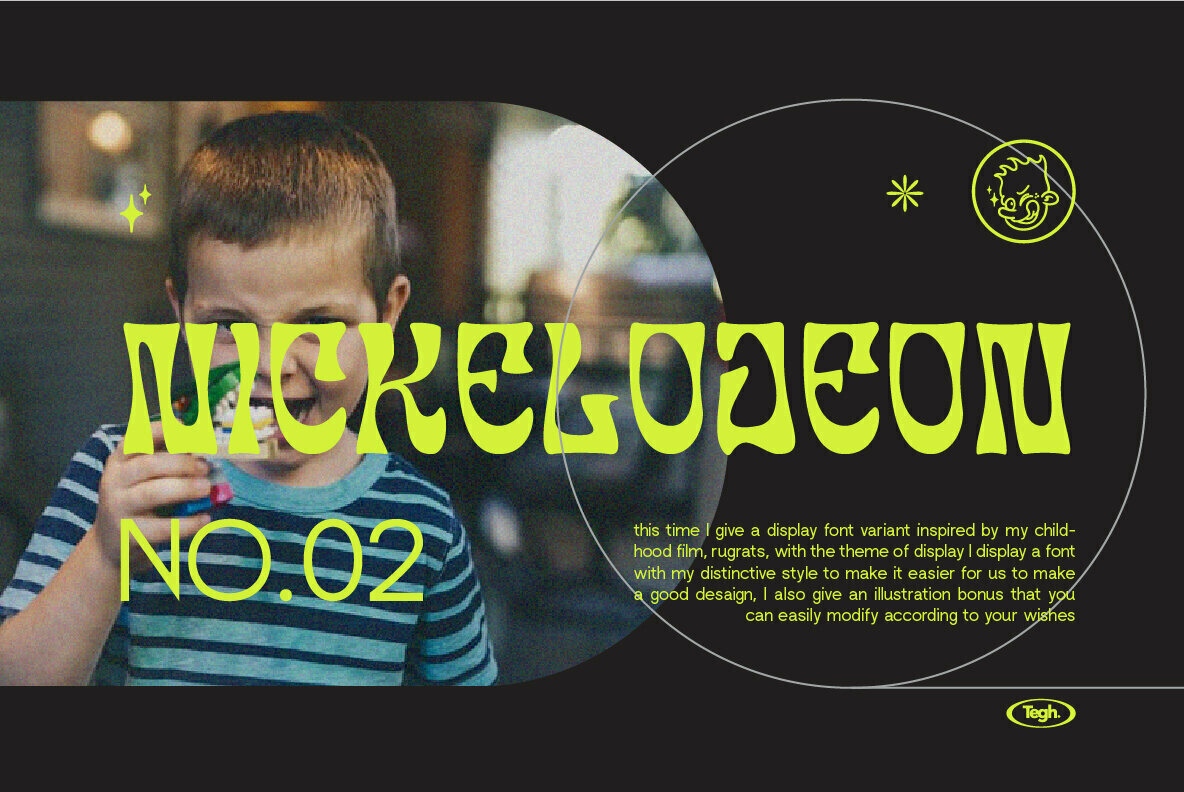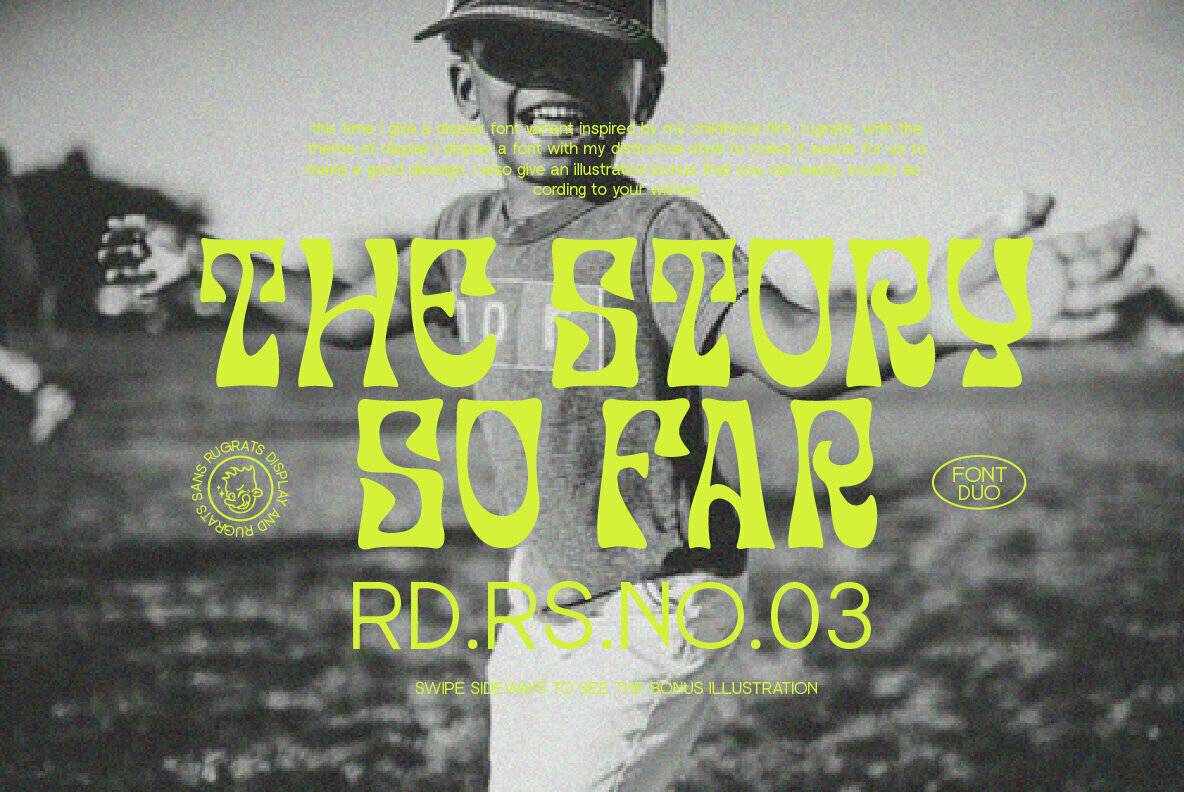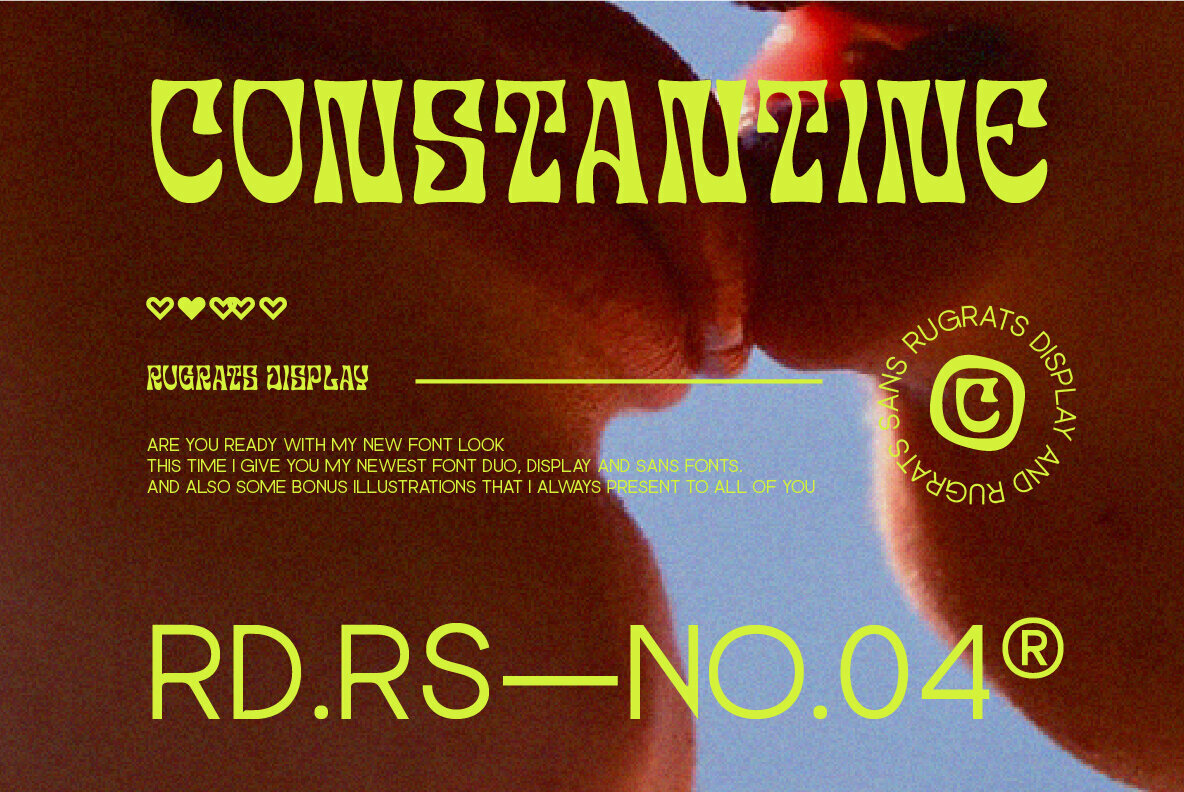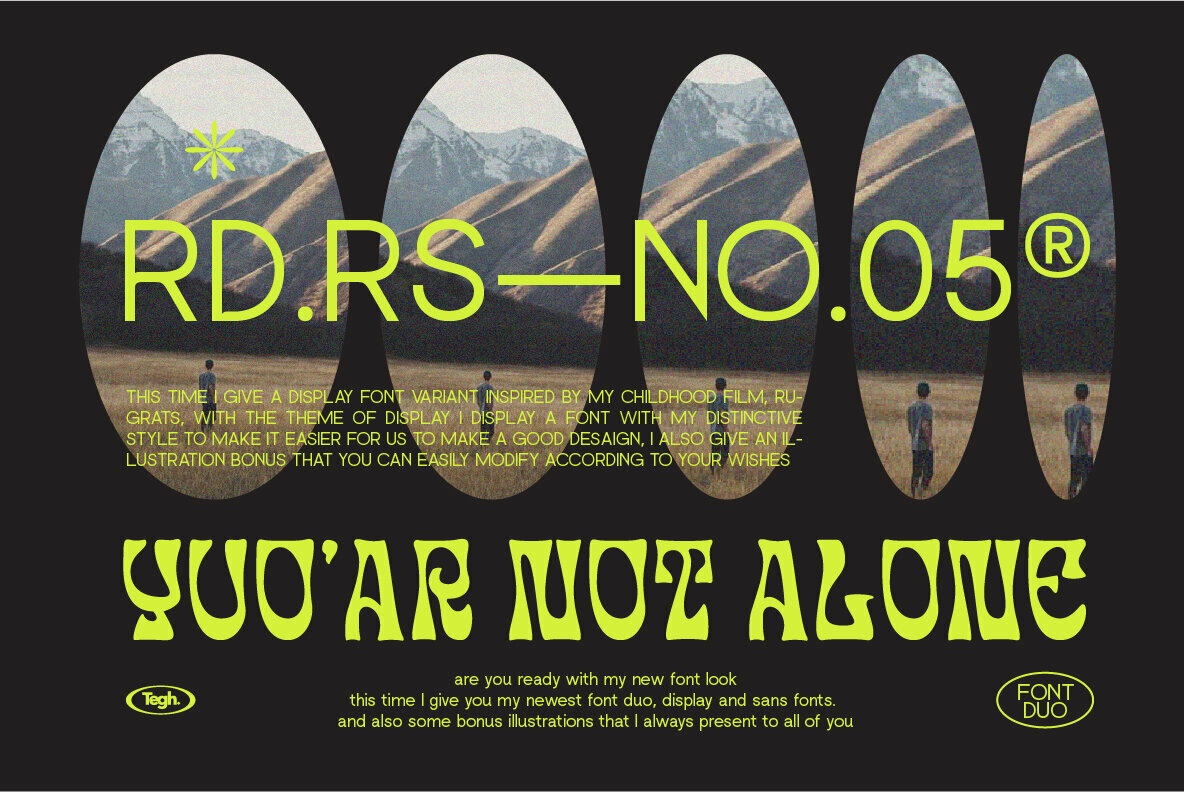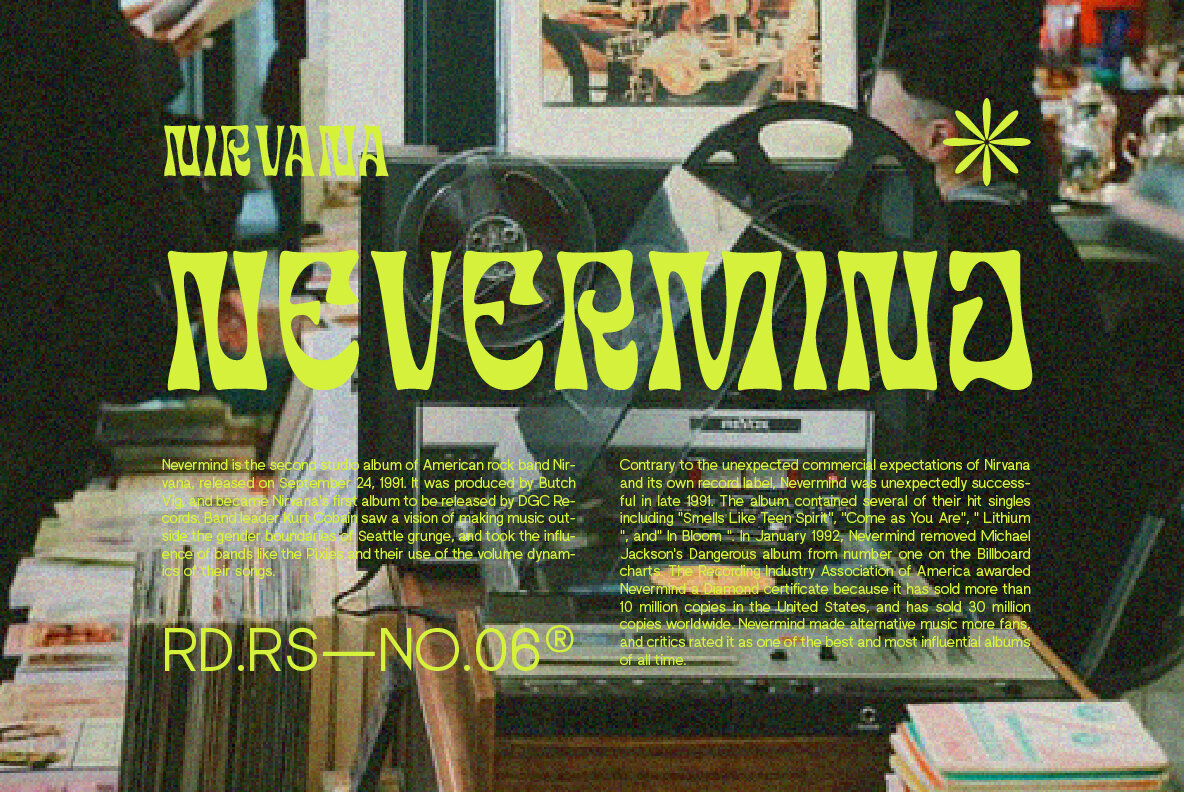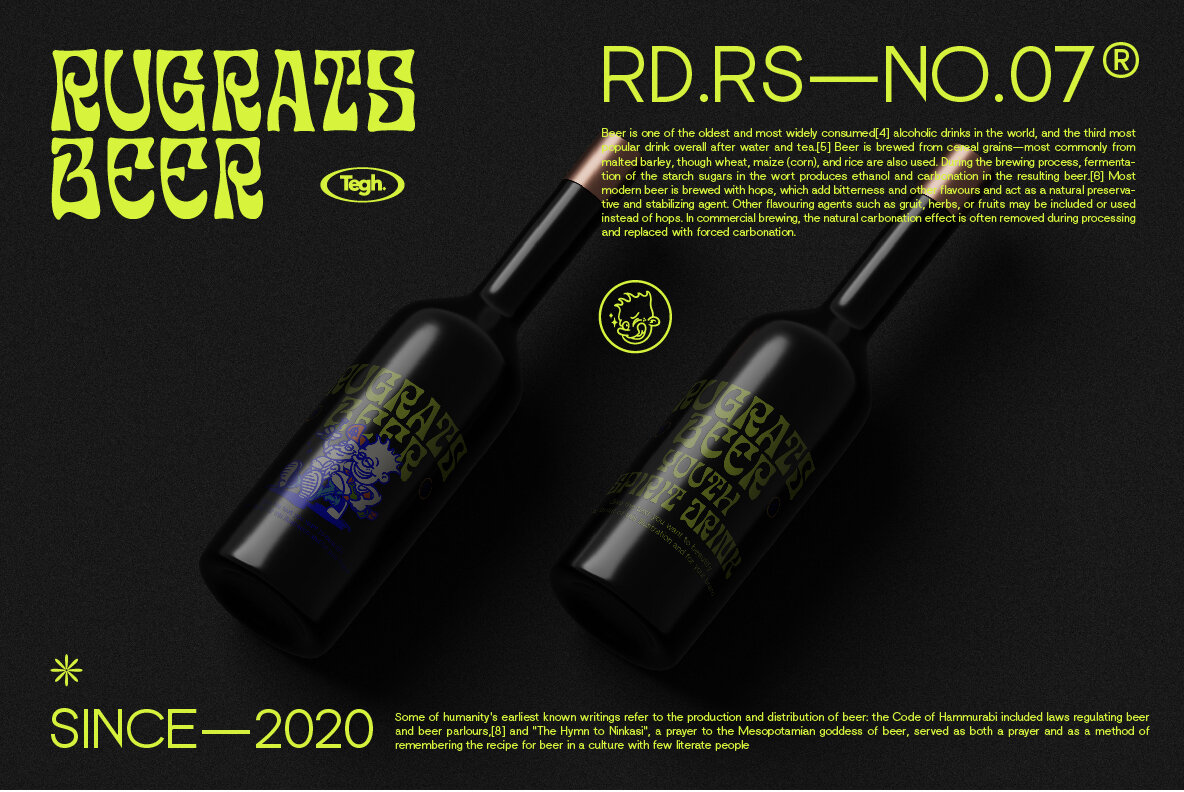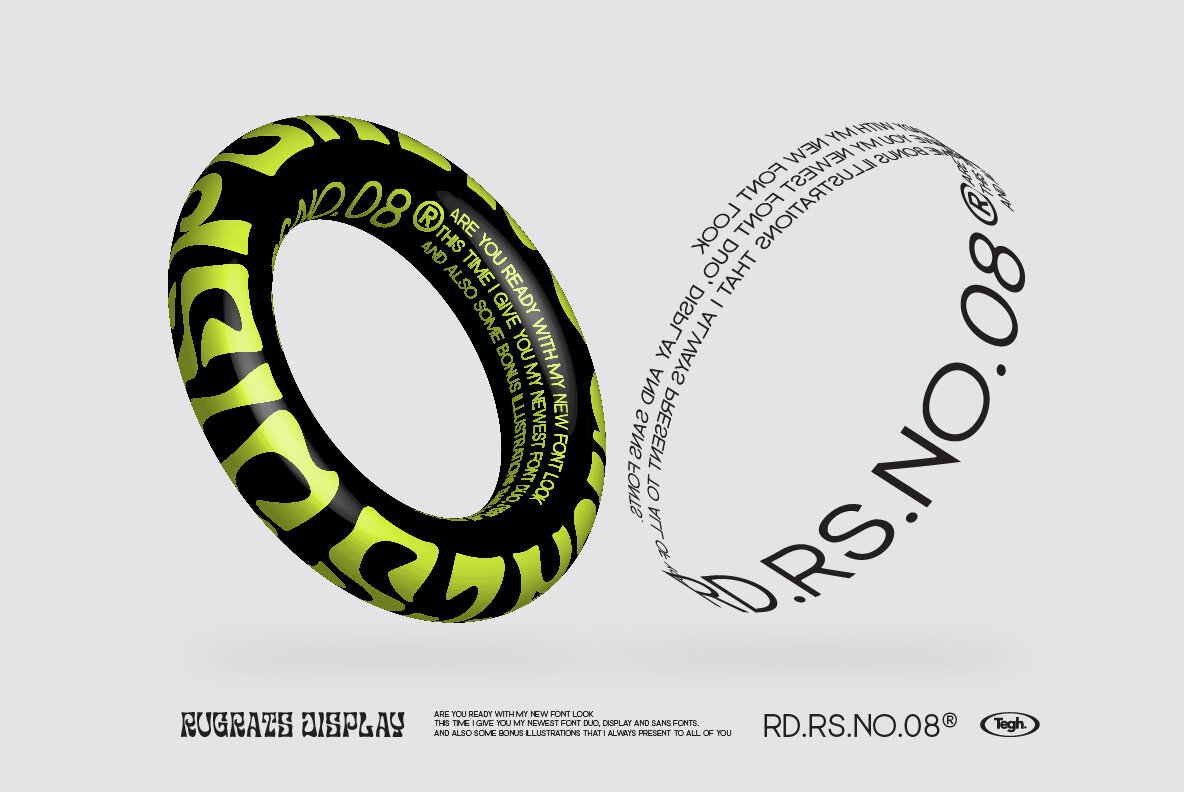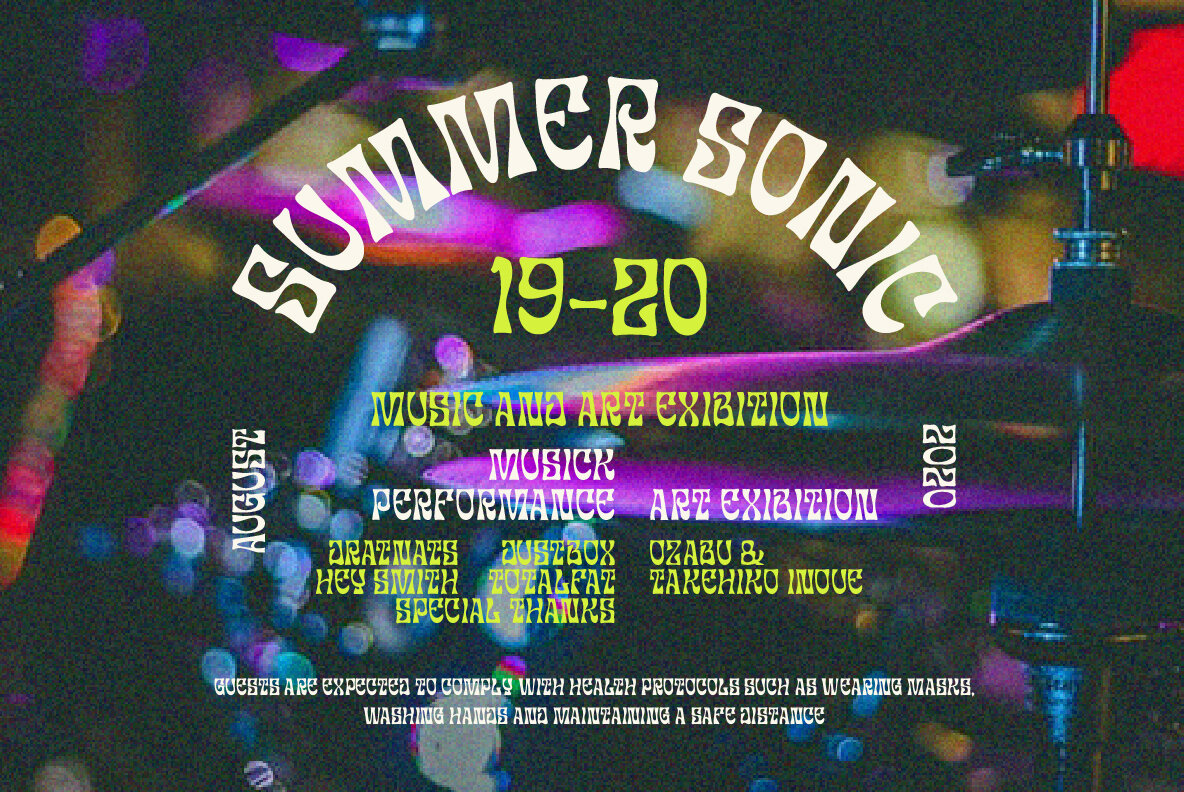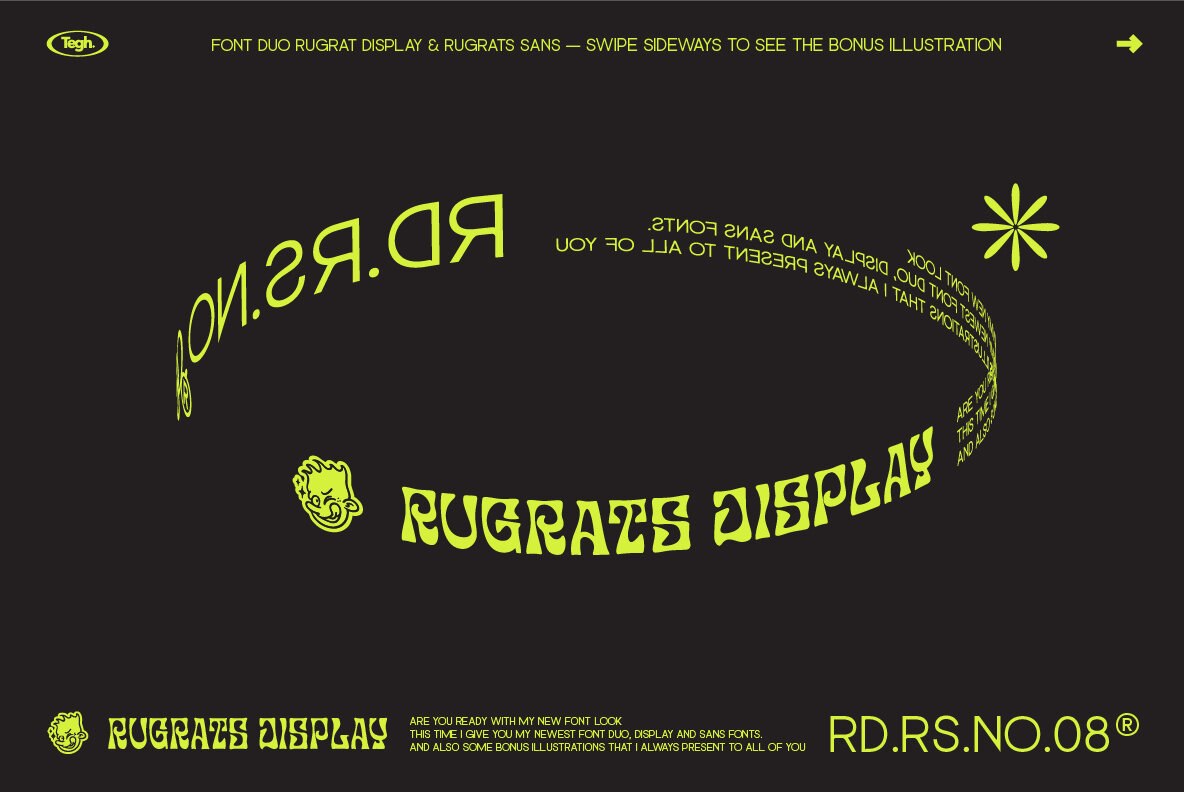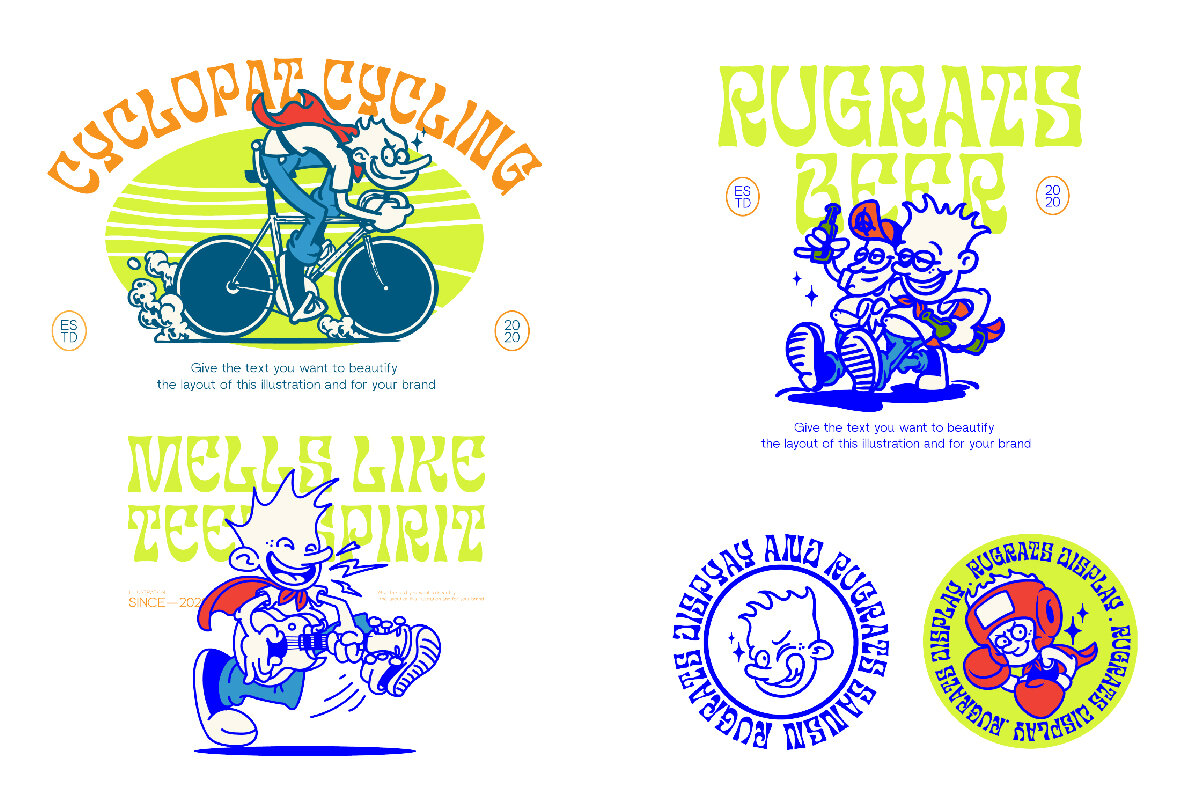
Rugrats Font Duo
The Rugrats font family is the perfect addition to your next design project. With its decorative style and sans-serif counterpart, you can create an incredible variety of looks with just one purchase!
Tegh Co is a bold and experimental type foundry, pushing the boundaries of typography with high-impact display fonts. Their font collection blends retro influences, futuristic aesthetics, and unconventional letterforms, creating typefaces that demand attention. From playful and bubbly script fonts to heavy, in...